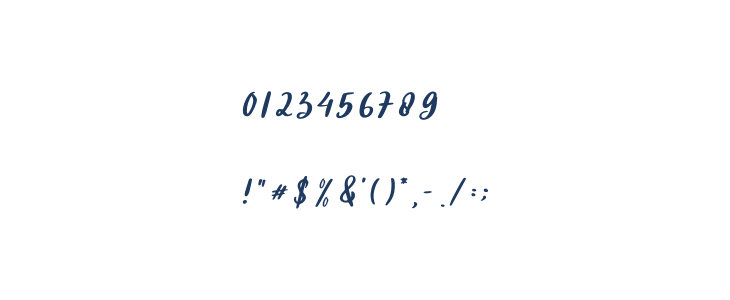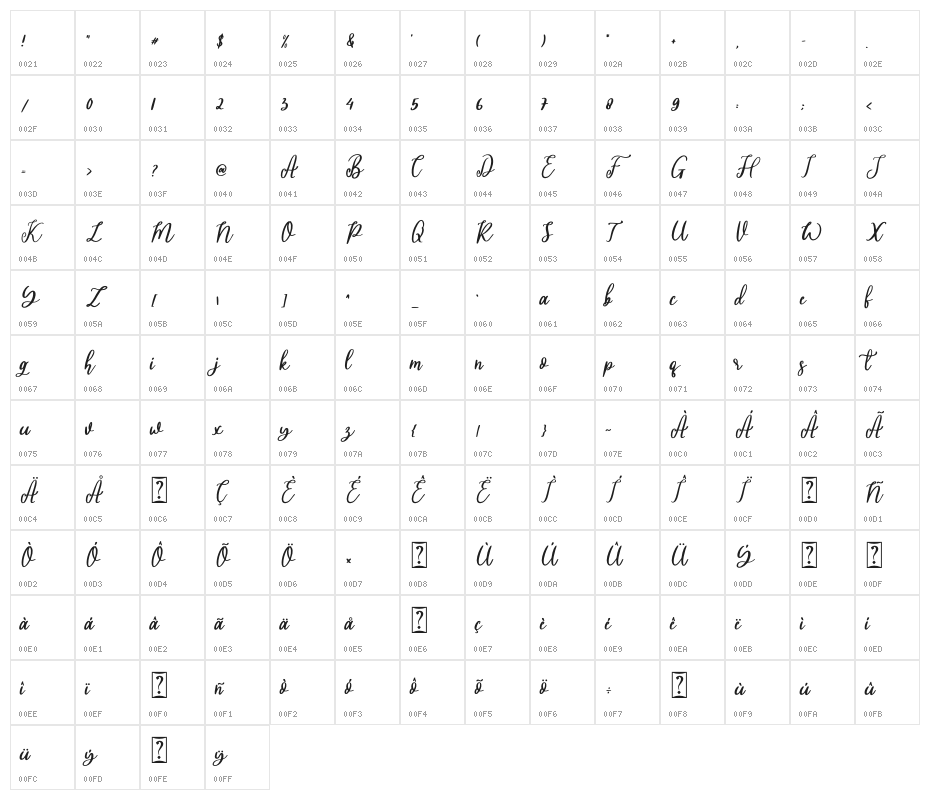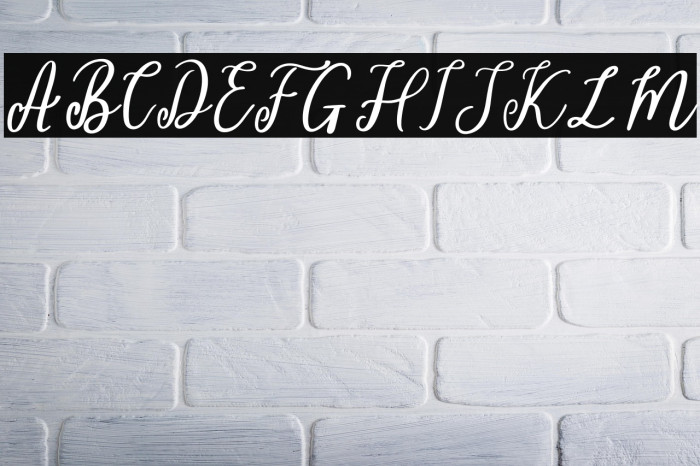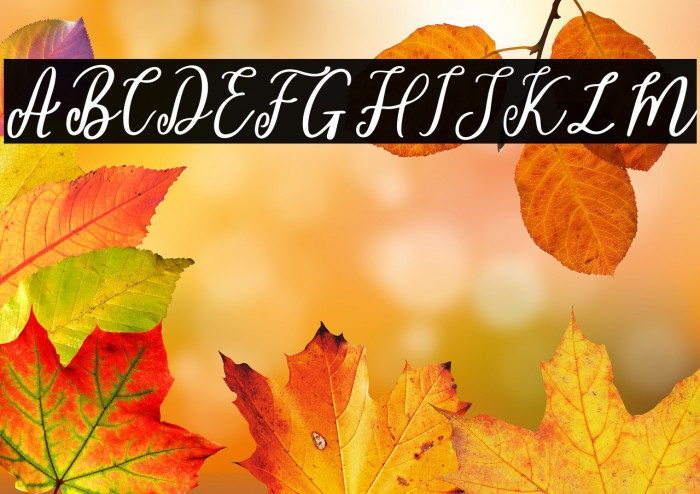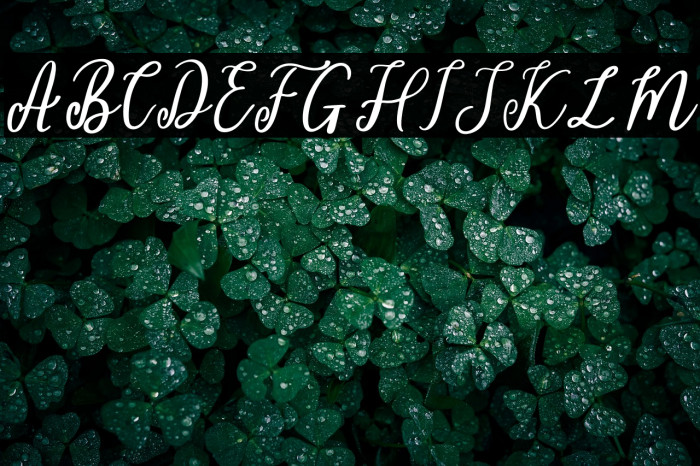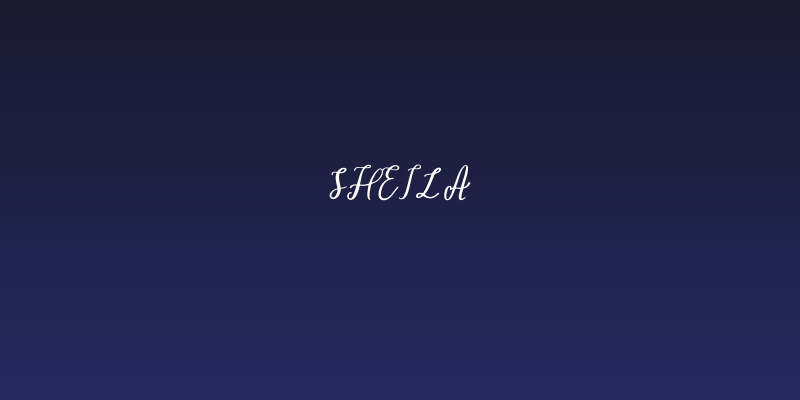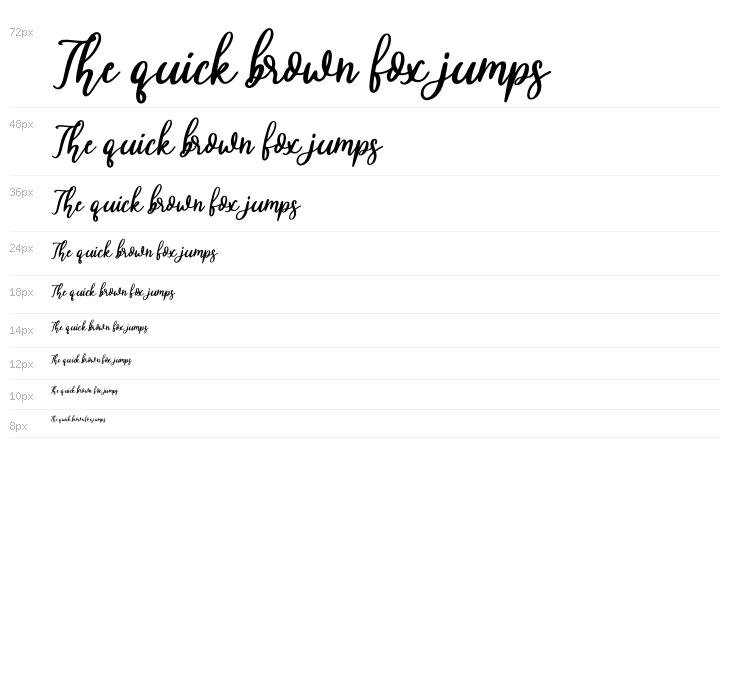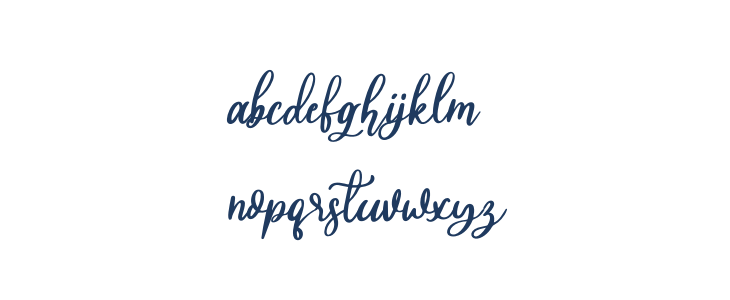
Sheila Font
Sheila Description
This font exudes a charming and elegant script style, characterized by its flowing and interconnected letterforms. The uppercase letters are gracefully elongated with subtle flourishes, while the lowercase letters maintain a consistent, smooth flow that enhances readability. The numerals are styled to match the cursive nature, providing a cohesive look throughout. Special characters are thoughtfully designed to complement the overall aesthetic, making it suitable for decorative purposes. The font's playful yet sophisticated appearance makes it ideal for creative projects that require a personal touch.